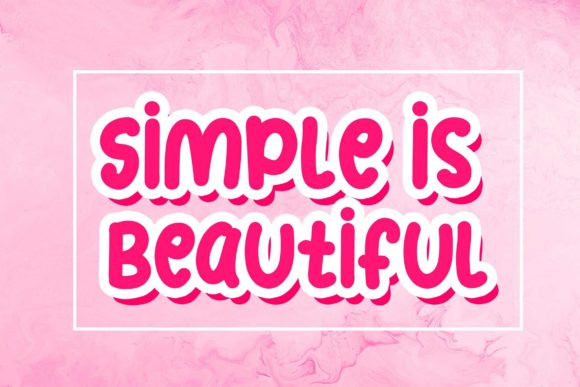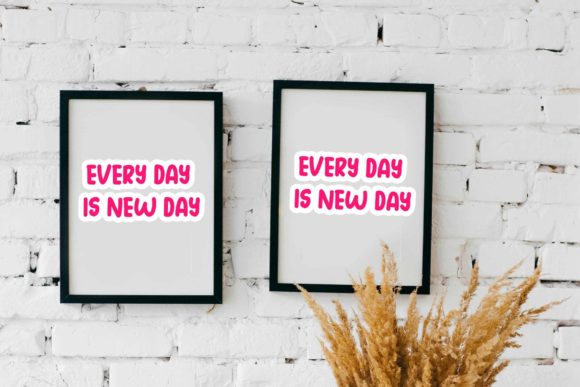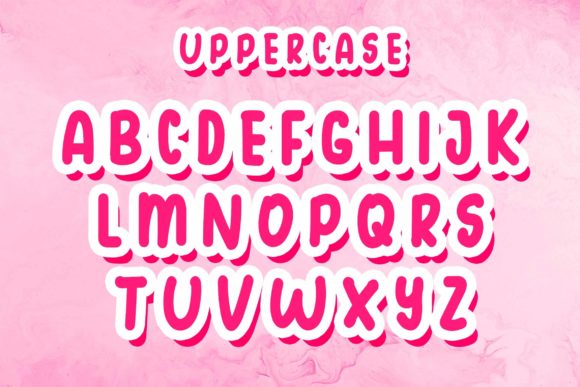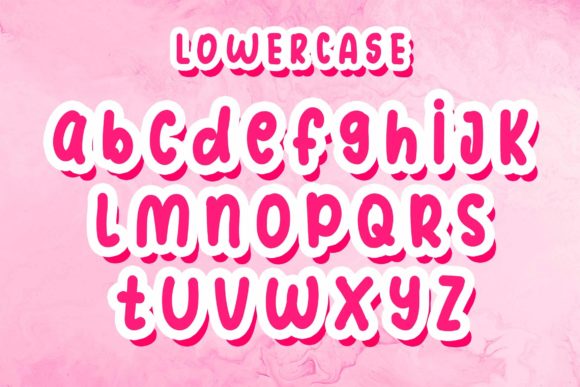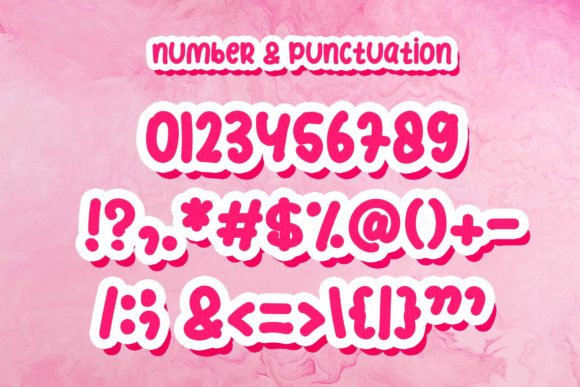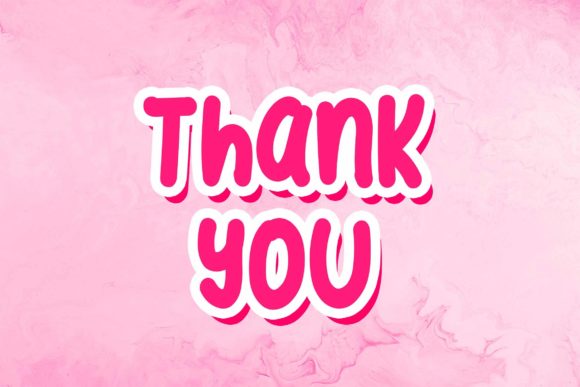
Fruits Donut Font: The Sweetest Addition to Your Design Collection
Are you tired of using the same old fonts in your designs? Look no further than the Fruits Donut Font, a display font that’s as sweet as it is playful. With its cute and colorful appearance, this font is sure to add a touch of whimsy to any design project. In this article, we’ll dive into the world of Fruits Donut Font and explore its features, uses, and benefits for designers and crafters.
What is Fruits Donut Font?
Fruits Donut Font is a display font designed to resemble the colorful and playful world of donuts and fruits. Its unique design combines the sweetness of fruits with the fun and playfulness of donuts, creating a font that’s both eye-catching and engaging. With its bold and rounded letters, Fruits Donut Font is perfect for designs that require a touch of whimsy and fun.
Features of Fruits Donut Font
Fruits Donut Font has several features that make it an excellent addition to any design collection. Some of its notable features include:
• Cute and Playful Appearance: Fruits Donut Font has a unique design that’s both cute and playful, making it perfect for designs that require a touch of whimsy.
• Bright and Colorful: The font’s bright and colorful appearance makes it perfect for designs that require a pop of color.
• Display Font: Fruits Donut Font is a display font, making it perfect for headlines, titles, and other design elements that require a bold and eye-catching font.
• Easy to Read: Despite its playful appearance, Fruits Donut Font is easy to read, making it perfect for designs that require a font that’s both fun and legible.
Uses of Fruits Donut Font
Fruits Donut Font is a versatile font that can be used in a variety of design projects. Some of its most popular uses include:
• Cartoon Designs: Fruits Donut Font is perfect for cartoon designs, adding a touch of whimsy and fun to any cartoon character or design.
• Children’s Toy Branding: The font’s playful and colorful appearance makes it perfect for children’s toy branding, adding a touch of fun and excitement to any toy or packaging design.
• Children’s Themed Designs: Fruits Donut Font is perfect for children’s themed designs, including birthday cards, party invitations, and other designs that require a fun and playful font.
• Graphic Design: Fruits Donut Font can also be used in graphic design projects, including brochures, posters, and other designs that require a bold and eye-catching font.
Benefits of Using Fruits Donut Font
There are several benefits to using Fruits Donut Font in your design projects. Some of its benefits include:
• Unique and Eye-Catching: Fruits Donut Font is a unique and eye-catching font that adds a touch of whimsy and fun to any design project.
• Versatile: The font’s versatility makes it perfect for a variety of design projects, from cartoon designs to graphic design projects.
• Easy to Use: Fruits Donut Font is easy to use and can be easily integrated into any design project.
• High-Quality: The font is high-quality, making it perfect for professional design projects.
Tips for Using Fruits Donut Font
Here are some tips for using Fruits Donut Font in your design projects:
• Use Bright and Bold Colors: Fruits Donut Font looks best when paired with bright and bold colors, so don’t be afraid to get creative with your color palette.
• Experiment with Different Sizes: The font’s bold and rounded letters make it perfect for designs that require a large and eye-catching font.
• Pair with Other Fonts: Fruits Donut Font can be paired with other fonts to create a unique and interesting design.
Fruits Donut Font is a sweet and playful font that’s perfect for designers and crafters looking to add a touch of whimsy to their design projects. With its cute and colorful appearance, versatility, and ease of use, Fruits Donut Font is an excellent addition to any design collection. Whether you’re designing a cartoon character, a children’s toy, or a graphic design project, Fruits Donut Font is sure to make your design stand out.